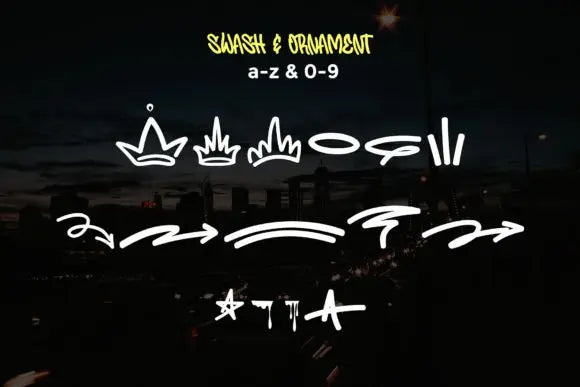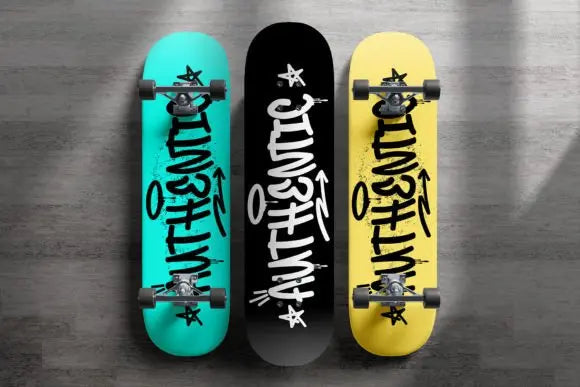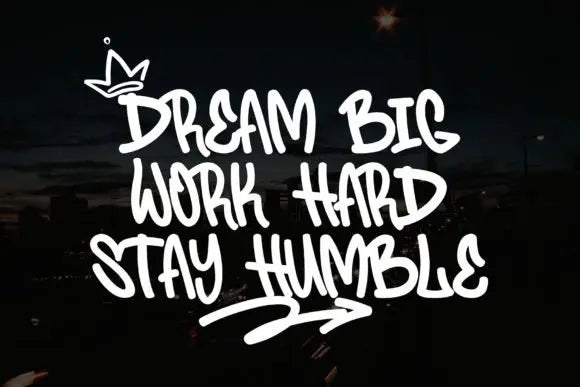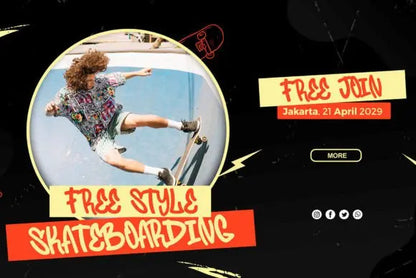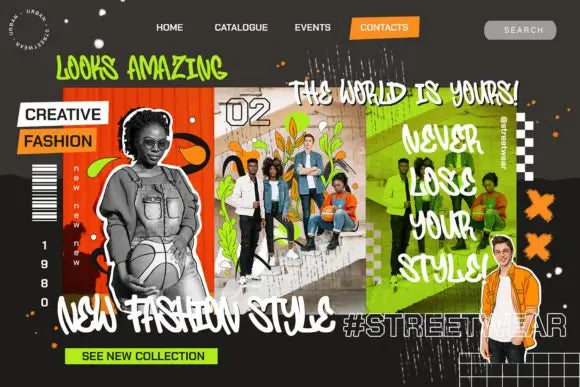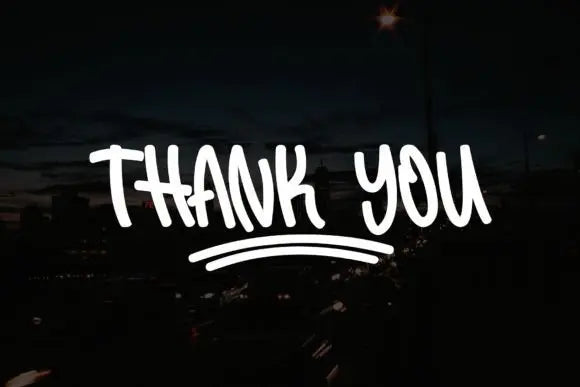
The Valiroz Font
Refined Elegance with The Valiroz Font
Why The Valiroz Font is Perfect for Luxury Designs?
For those seeking a font that exudes luxury and sophistication, The Valiroz Font is the perfect match. Designed for premium branding, fashion logos, and elegant editorial layouts, this font is the epitome of style and grace.
The Valiroz Font – A Touch of Class for Your Creations
With its sleek curves and refined details, The Valiroz Font is ideal for high-end branding, upscale invitations, and fashion-forward advertisements. If you want a font that speaks exclusivity and elegance, look no further.
Key Features of The Valiroz Font:
✦ Luxurious & Stylish Design – Perfect for fashion brands and premium products.
✦ Refined & Elegant Letterforms – Balances grace with readability.
✦ Versatile for Digital & Print – Ideal for editorial layouts, branding, and invitations.
Upgrade your branding with The Valiroz Font – elegance in every letter!